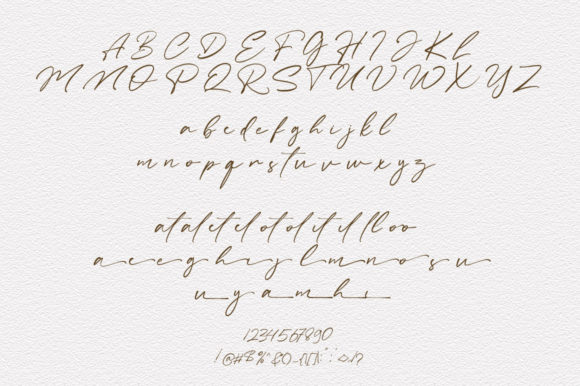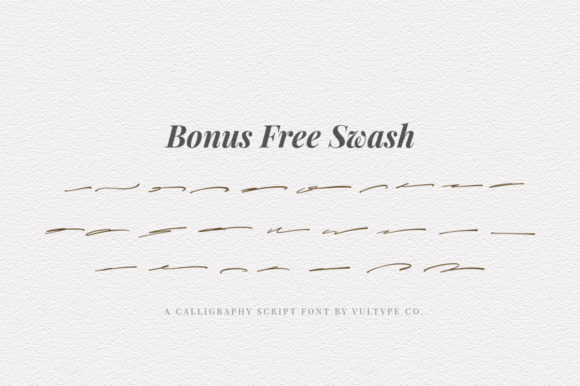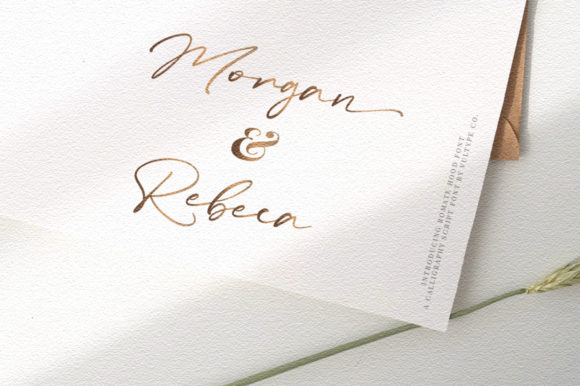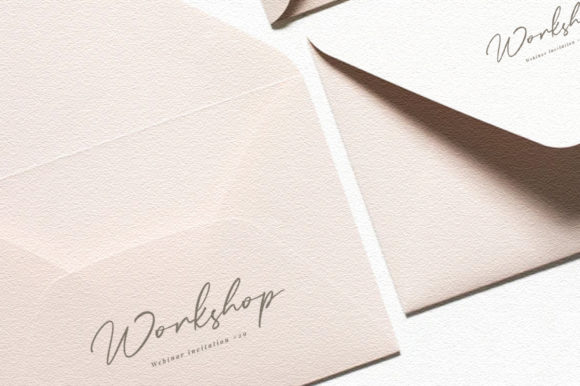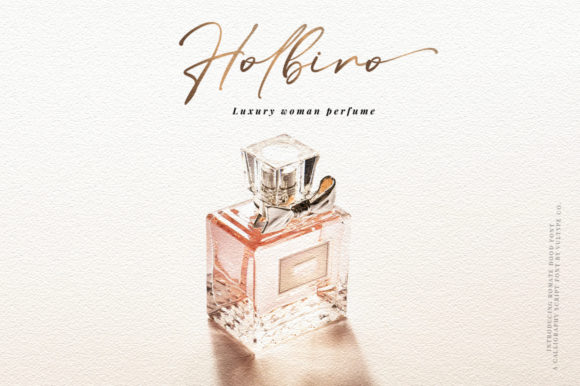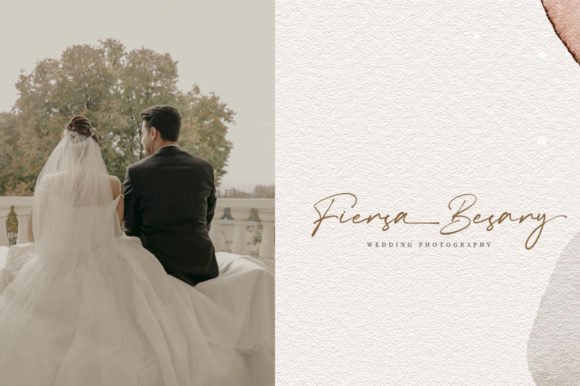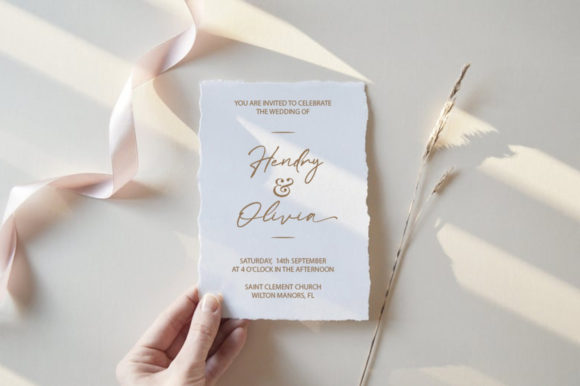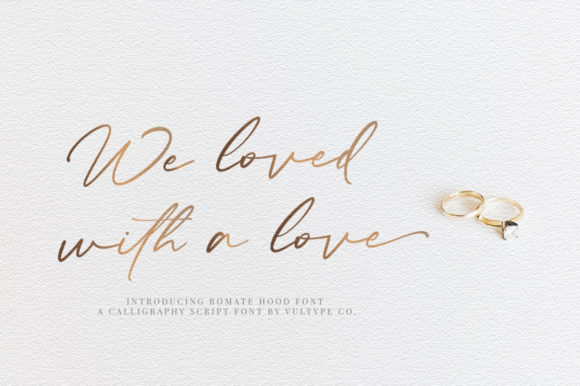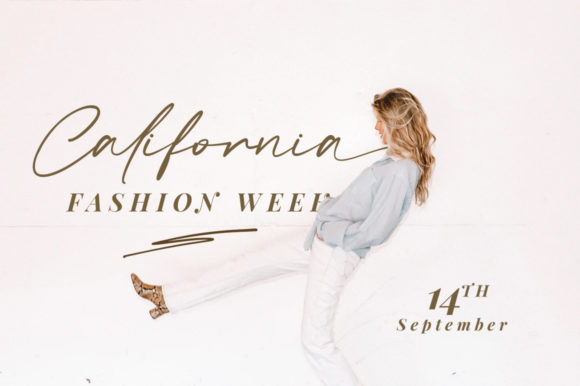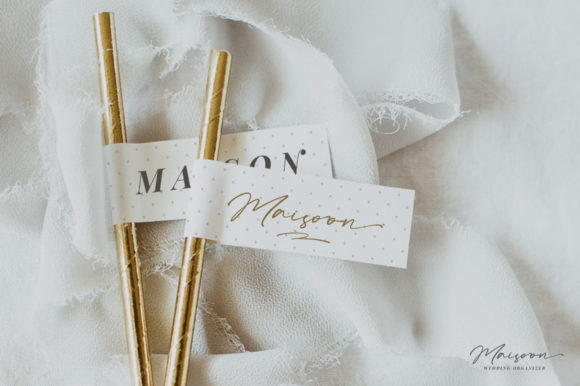
Romate Hood Font
About Romate Hood Font
Romate Hood feels equally charming and elegant. This is a beautiful combination of timeless elegance and authentic handwritten calligraphy. This font can be used in a wide variety of applications from wedding designs, to logos – the only limit is your imagination!